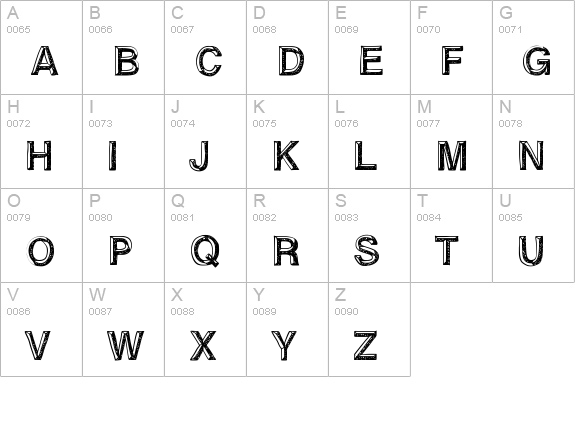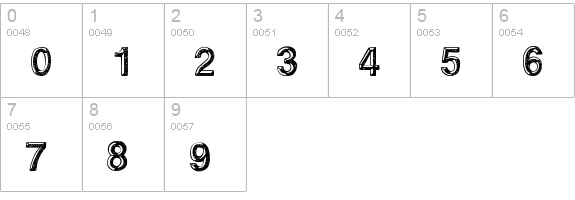
influence Font Details
Introducing Influence Font, a powerful and captivating typeface that is sure to make an impact on your design projects. With its bold and stylish appearance, Influence Font exudes confidence and authority, making it the perfect choice for headlines, logos, posters, and other creative endeavors. This font's unique design stands out from the crowd, commanding attention and leaving a lasting impression. Its strong, sharp lines and distinct geometric shapes give it a sense of modernity and sophistication, while its smooth curves add a touch of elegance and versatility. Whether you're working on a corporate presentation, a fashion magazine layout, or a branding project, Influence Font provides you with the tools to express your ideas with clarity and distinction. Its wide range of uppercase and lowercase characters, along with various punctuation marks and numerals, ensures that every detail of your design is crisp and polished. And the best part? Influence Font is free! That's right, you can freely download this stunning font at FontsMarket.com, where you'll find a vast collection of high-quality fonts for all your design needs. So why wait? Enhance your creative projects with Influence Font and let your ideas shine with confidence and influence.